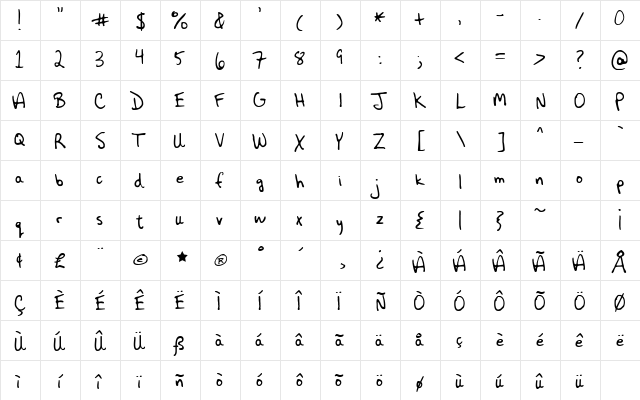
GFYPalmer Regular Font Preview
GFYPalmer Regular
Design Context for GFYPalmer Typeface
GFYPalmer is a composed and adaptable typeface that performs quietly and consistently across a wide range of design contexts.